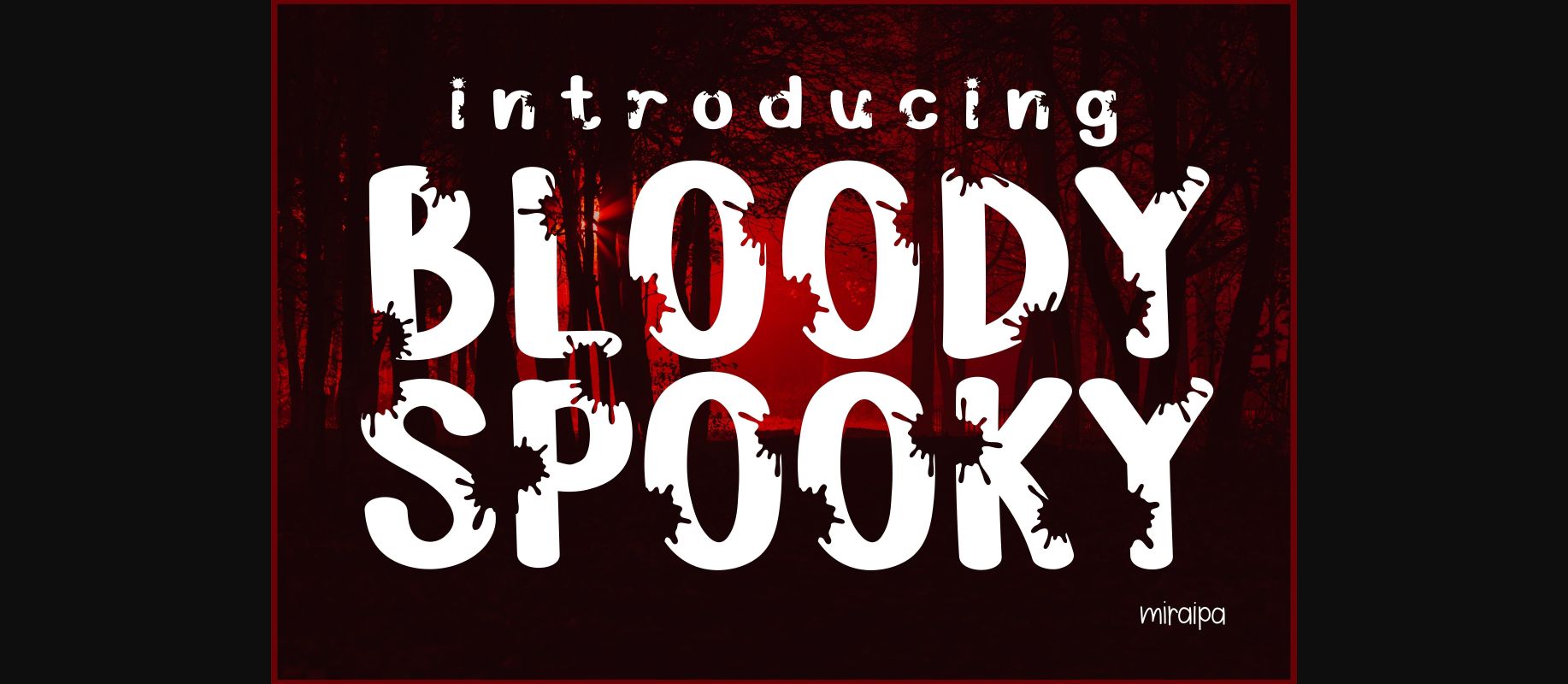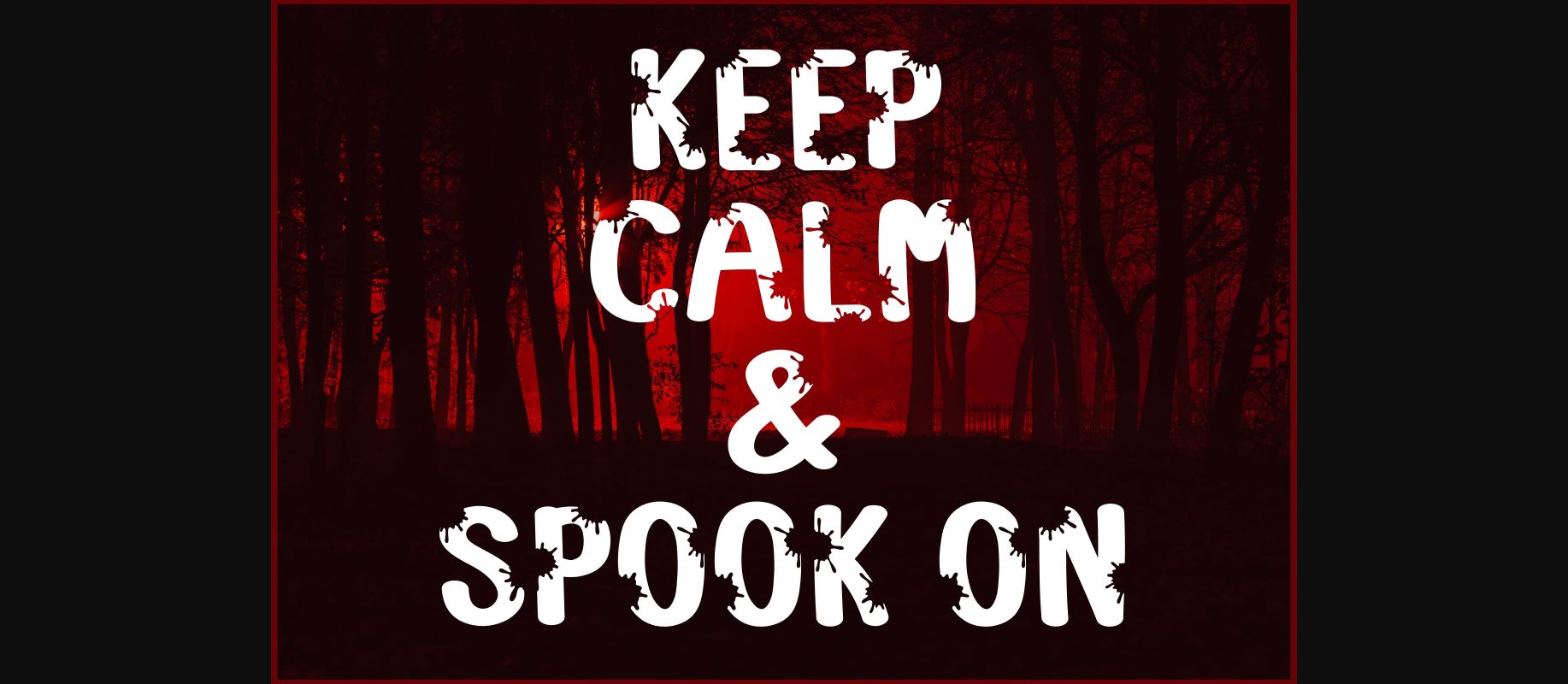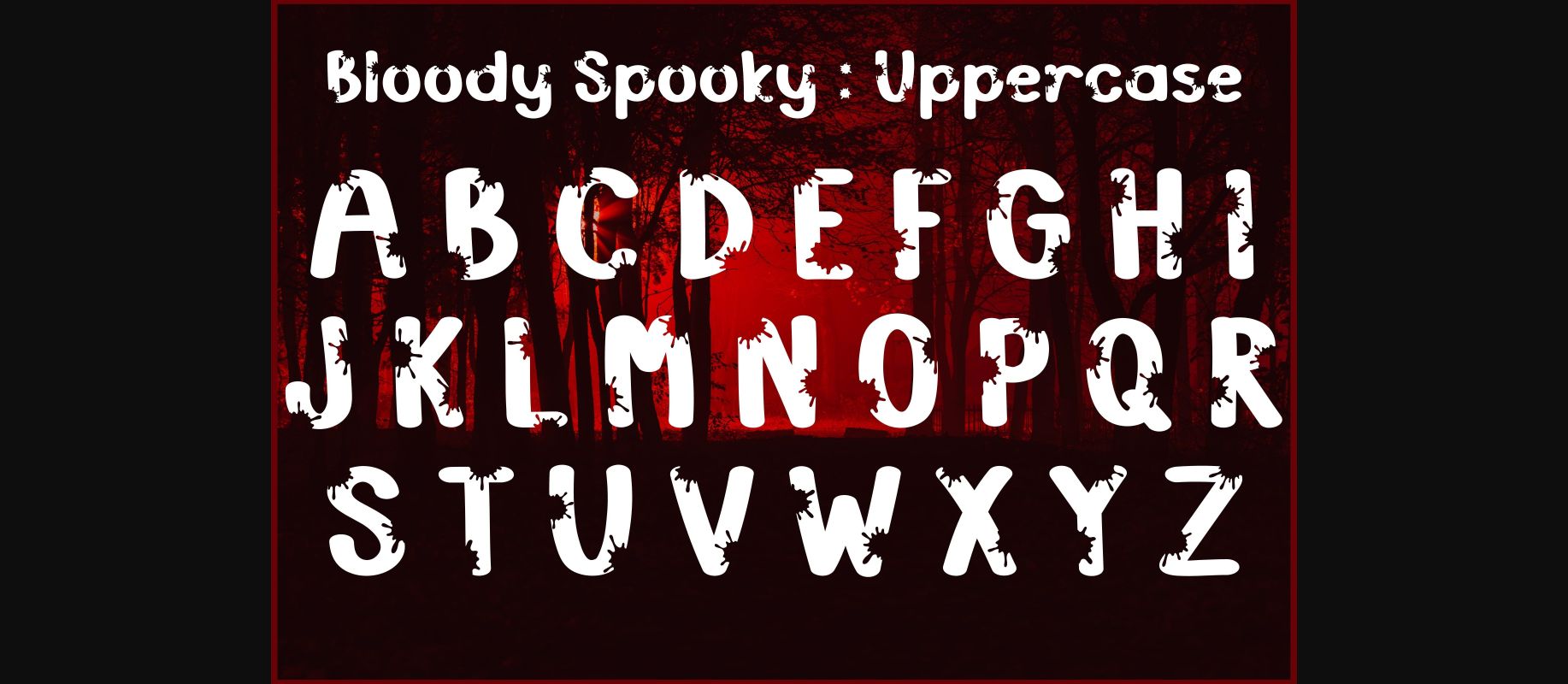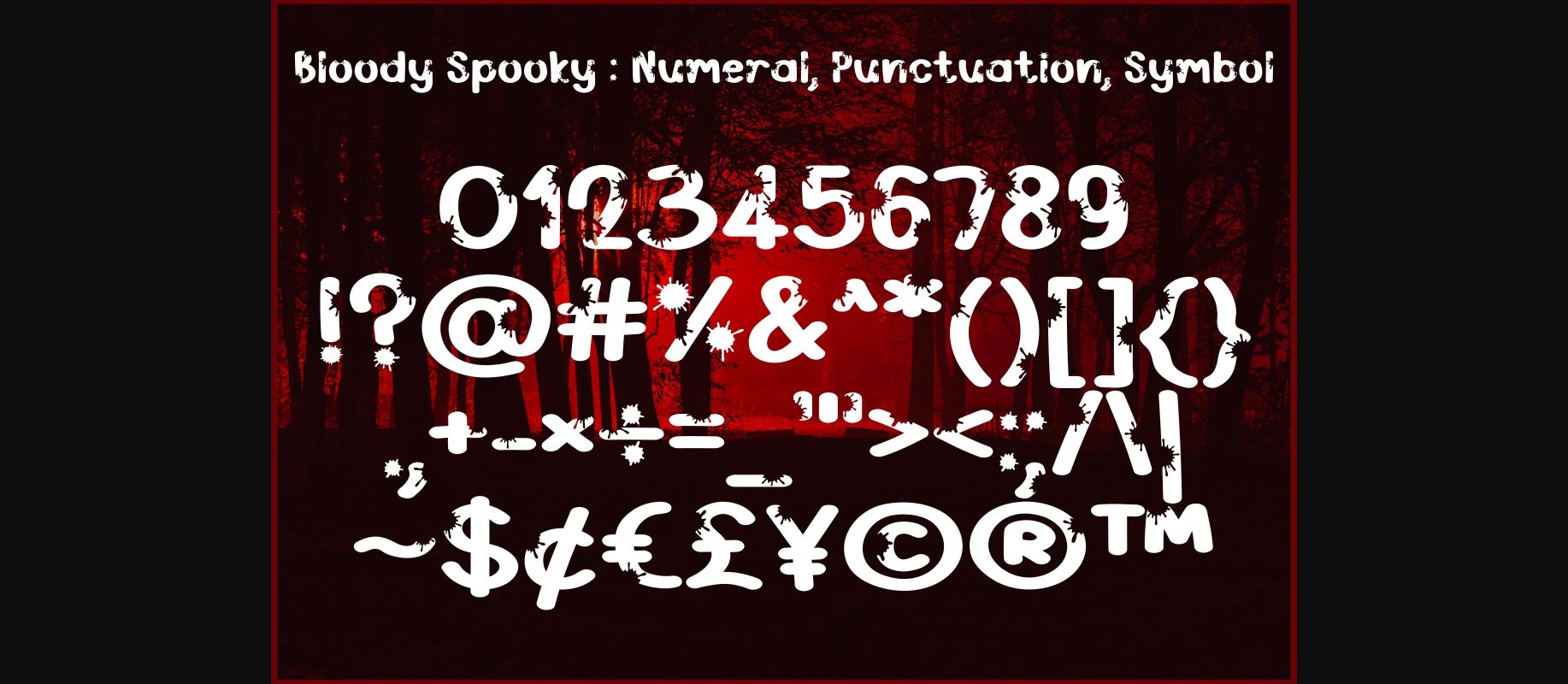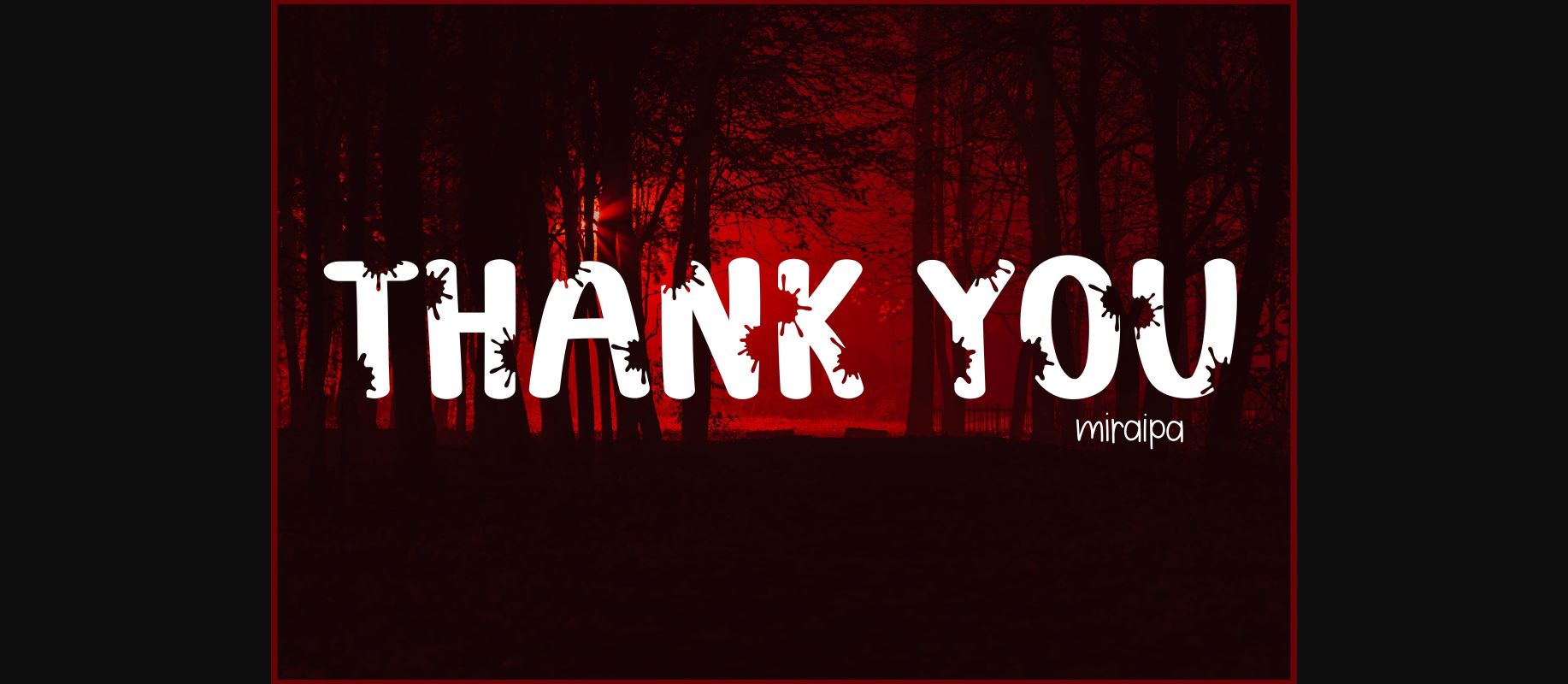
About Bloody Spooky Font
Bloody Spooky is a scary yet fun decorative font. With its spooky character and bloody spots, this font is perfect for your Halloween or horror-themed projects.